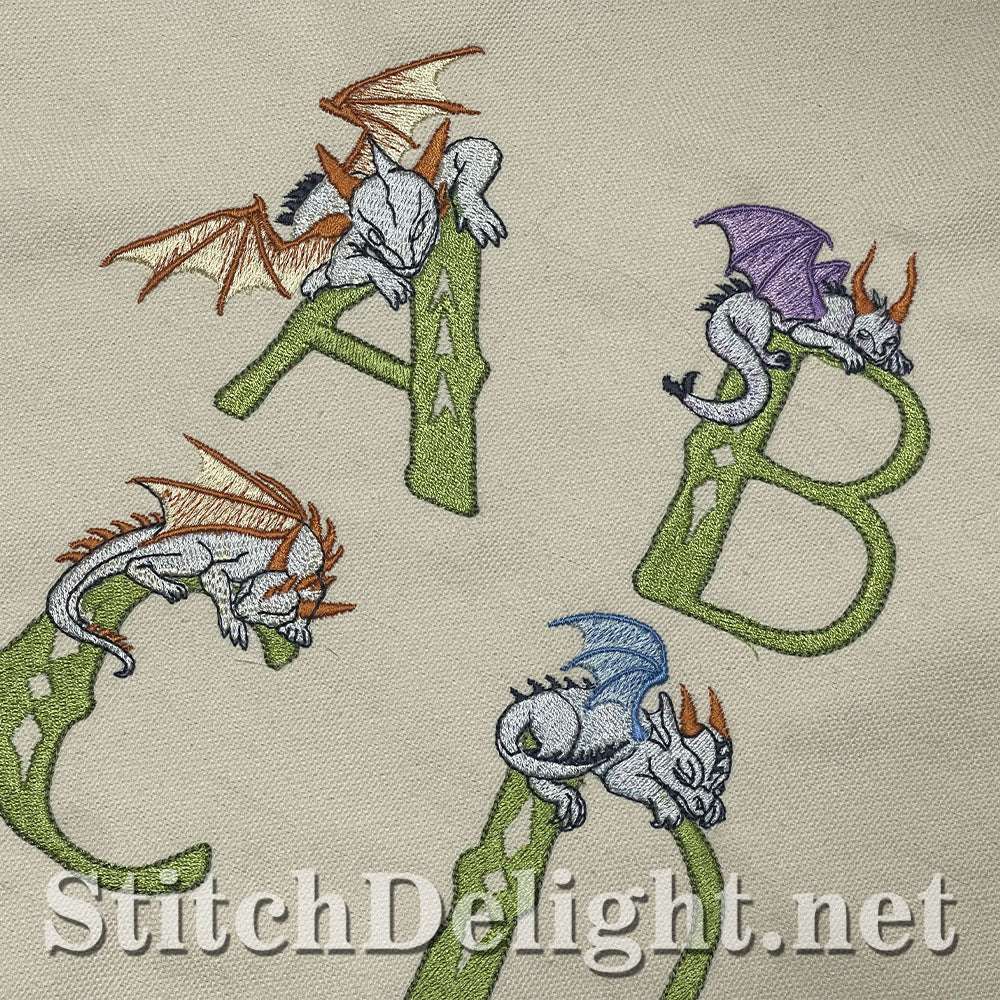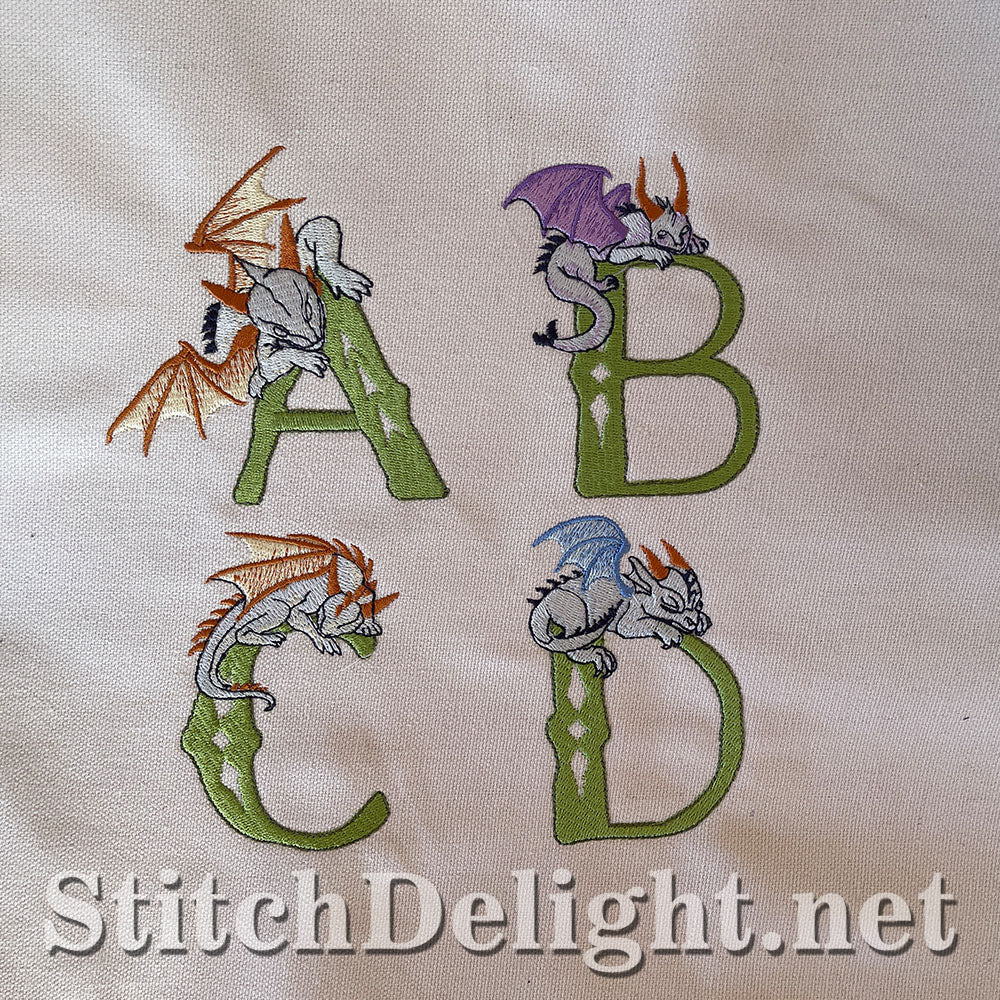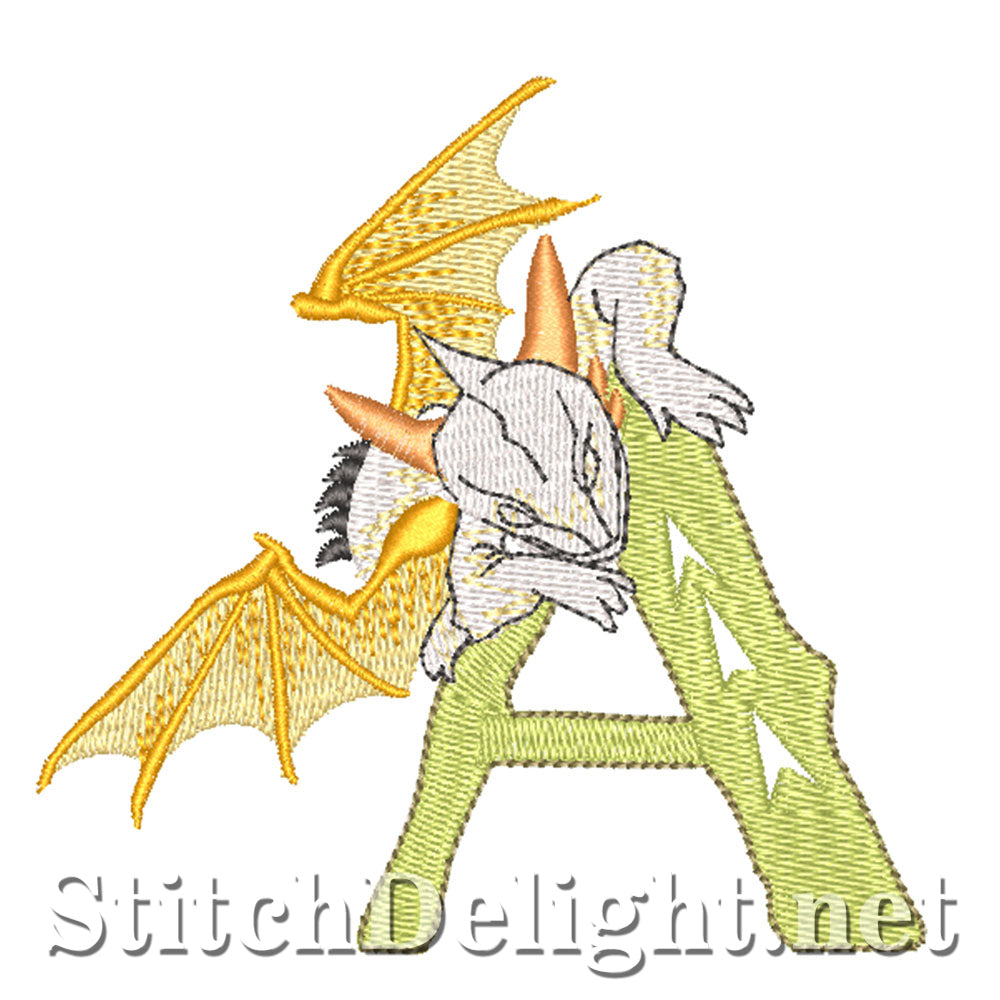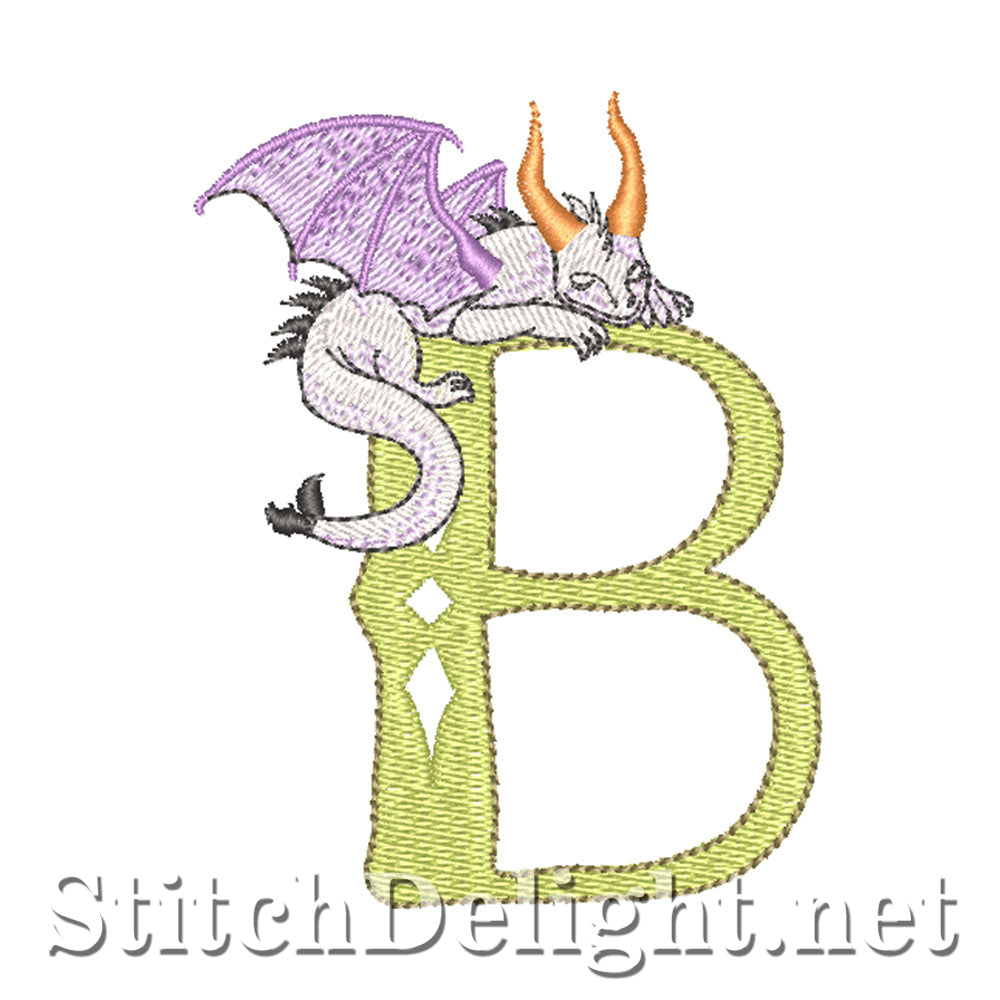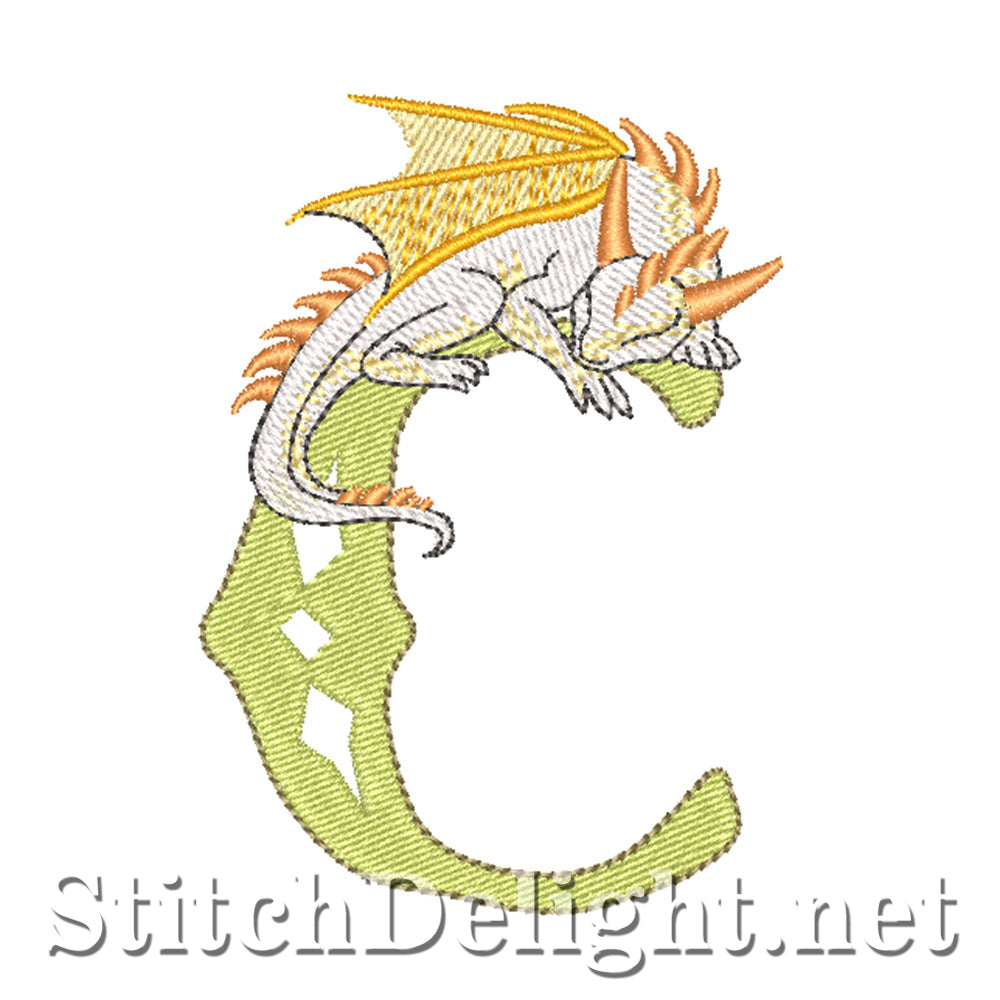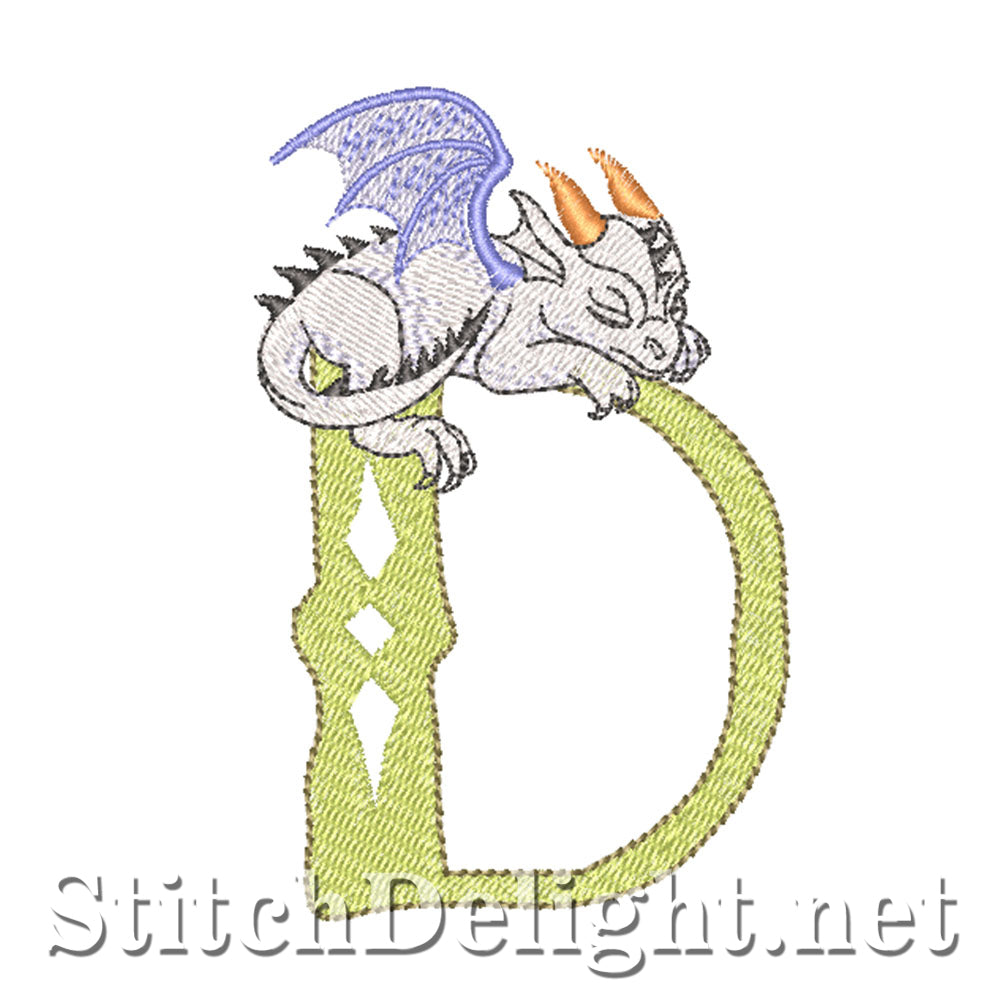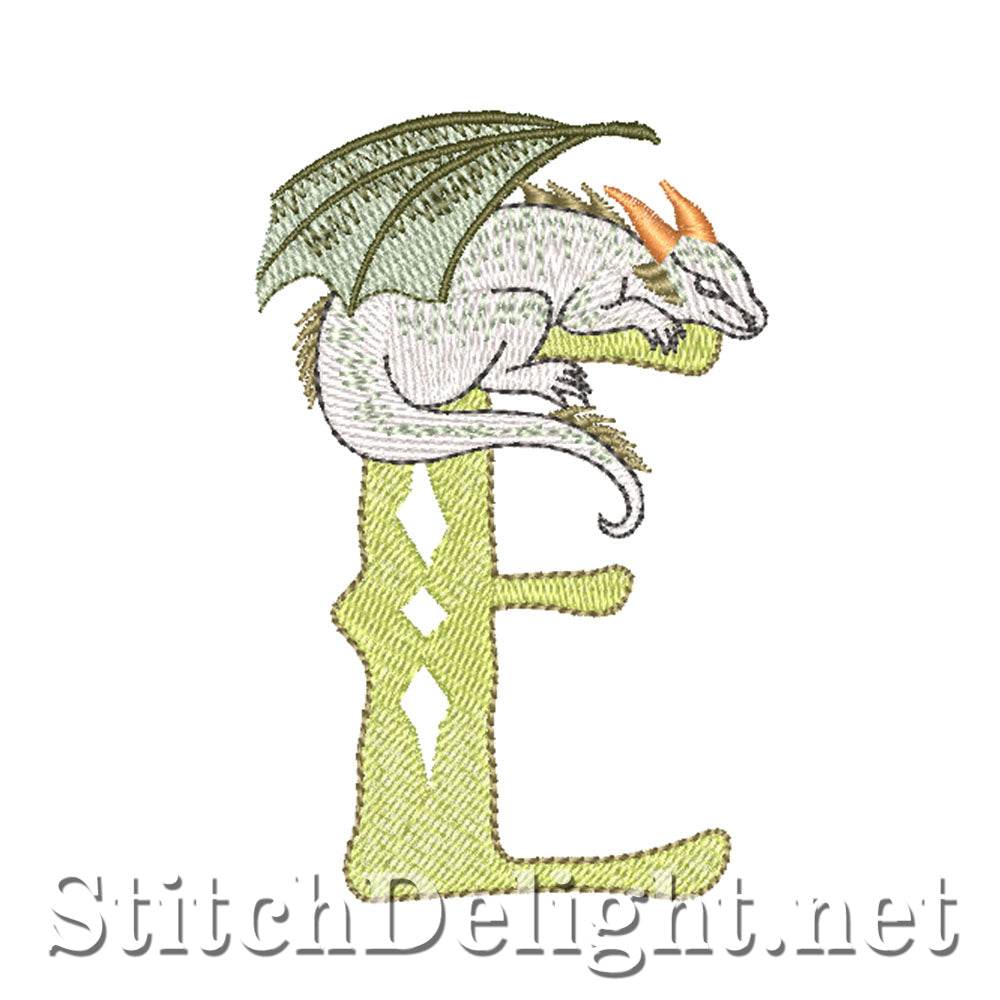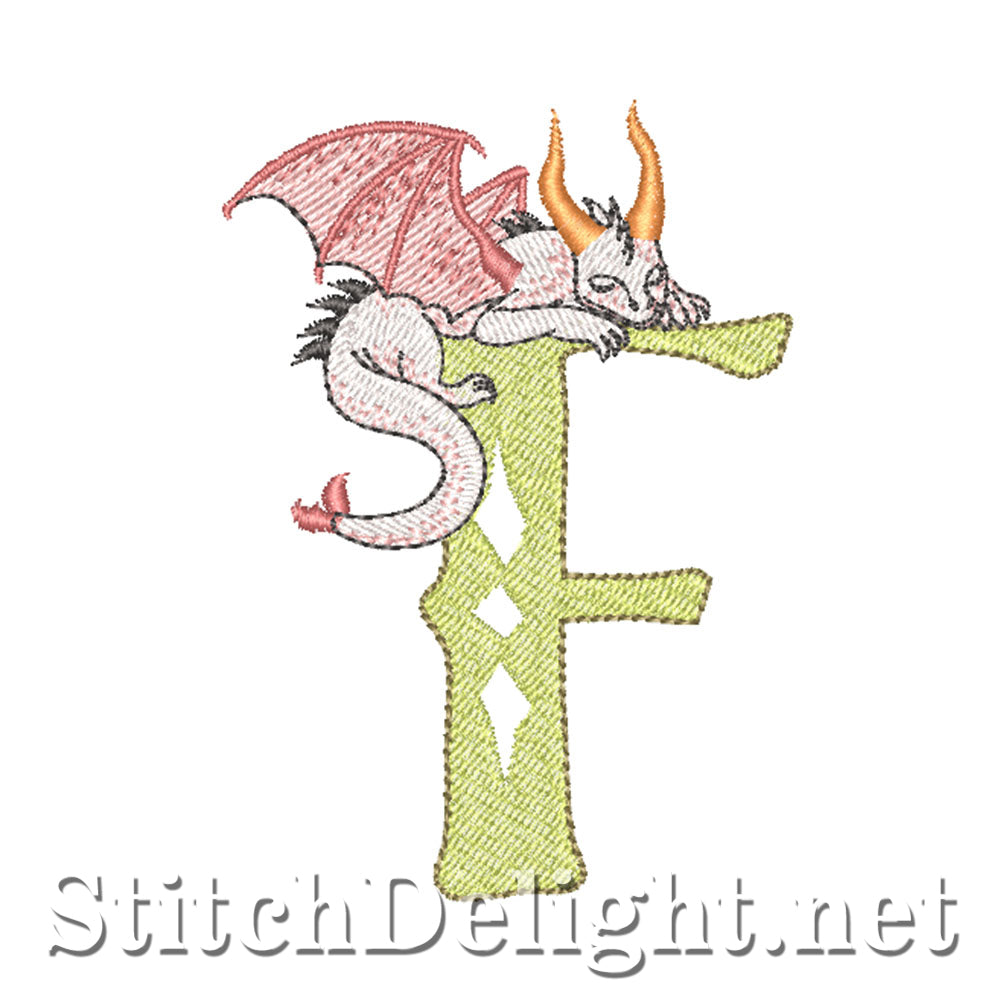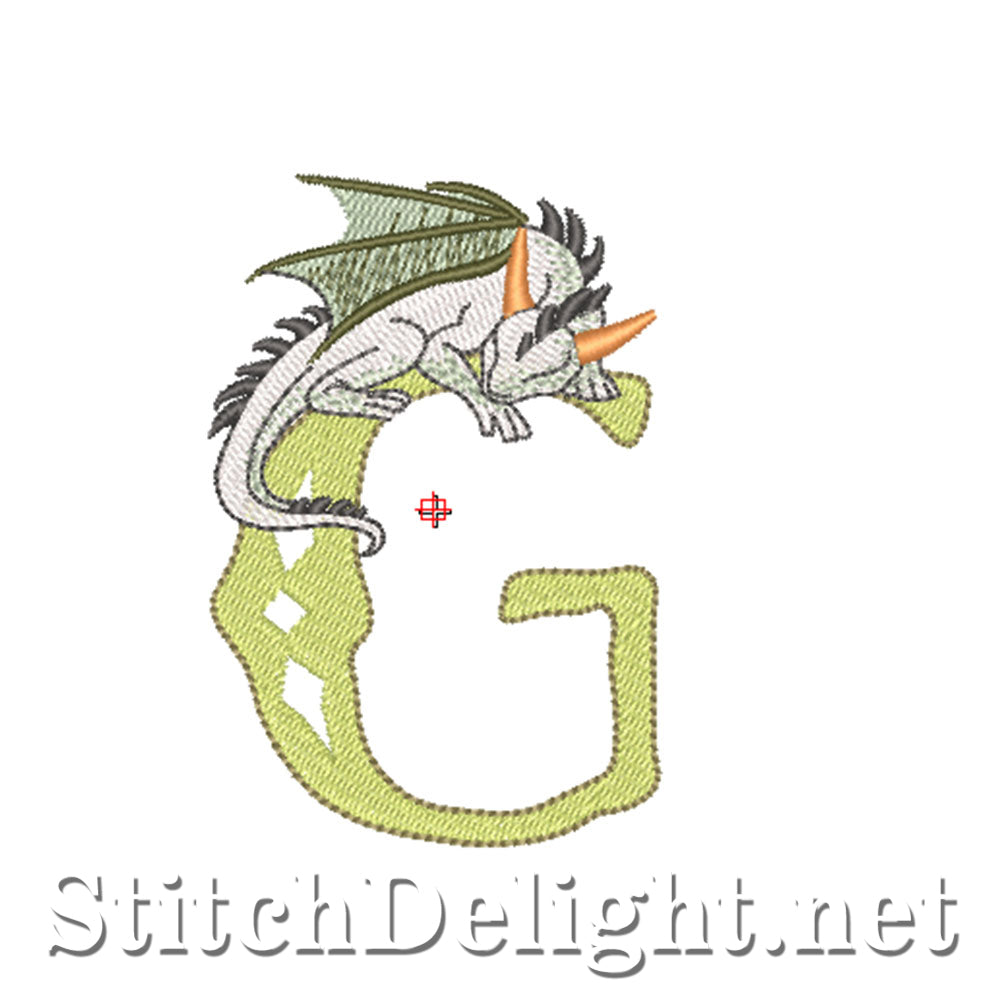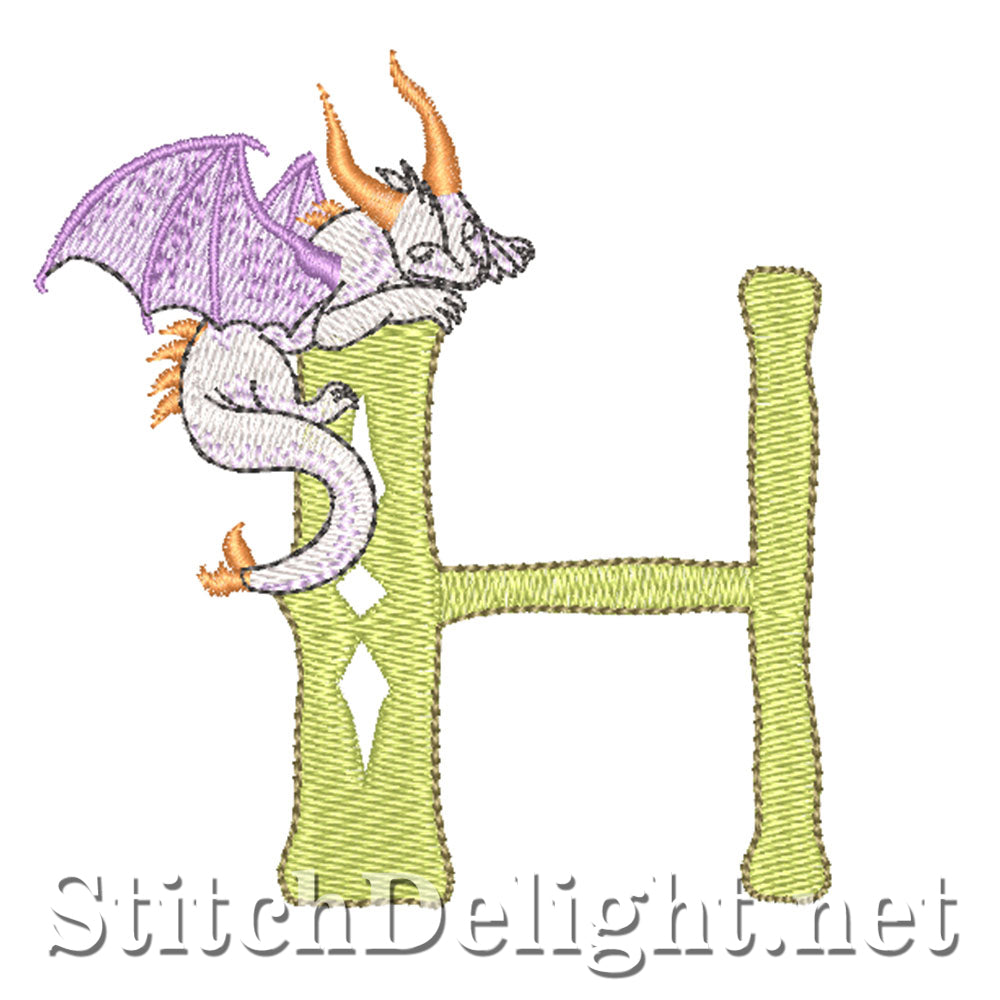
Behold the awe-inspiring majesty of dragonkind, noble creatures of myth and legend!
These dragons are nothing short of captivating, fit for any endeavor seeking a touch of their wondrous essence.